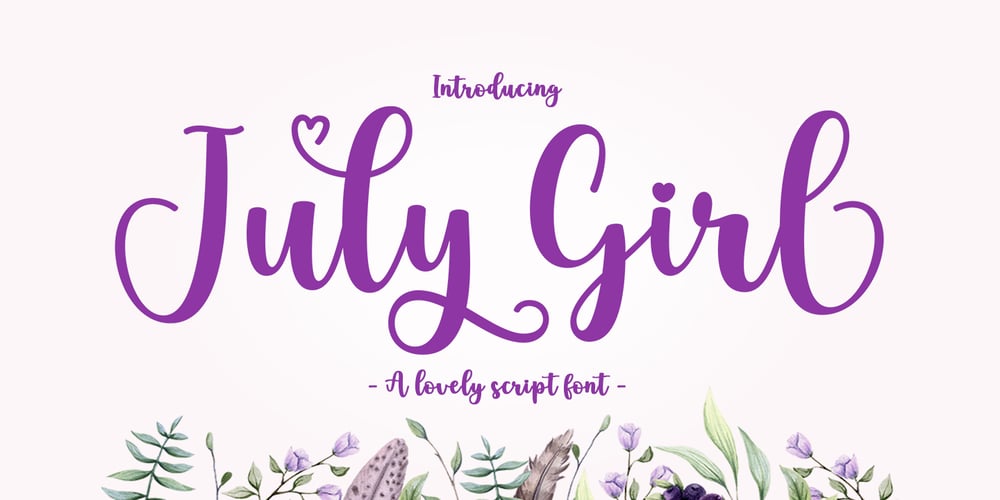
July Girl Font Family was designed by Muammar Kadafi and published by Attract Studio. July Girl contains 2 styles and family package options. INTRODUCINGJuly Girl is a new variant of beautiful script type with linkable hearts that is here to complete your script font collection. July Girl is perfect for branding, wedding invitations, business cards, posters, quotes and other romantic projects.July Girl features OpenType stylistic alternates, ligatures and International support for most Western Languages is included. To enable the OpenType Stylistic alternates, you need a program that supports OpenType features such as Adobe Illustrator CS, Adobe Indesign & CorelDraw X6-X7, Microsoft Word 2010 or later versions.July Girl is coded with PUA Unicode, which allows full access to all the extra characters without having special designing software. Mac users can use Font Book , and Windows users can use Character Map to view and copy any of the extra characters to paste into your favourite text editor/app.If you need help or have any questions, please let me know. I’m happy to help.Thank you.Attract Studio